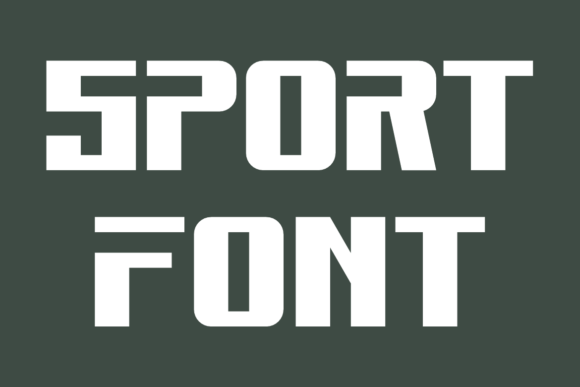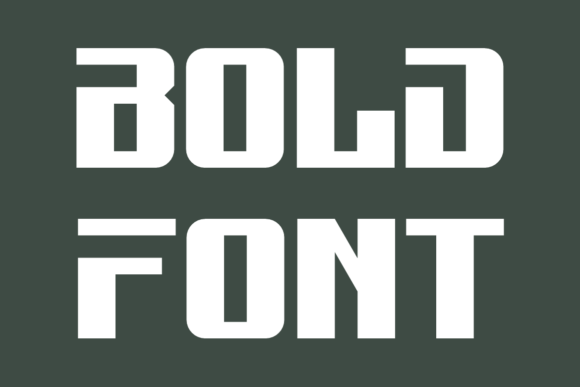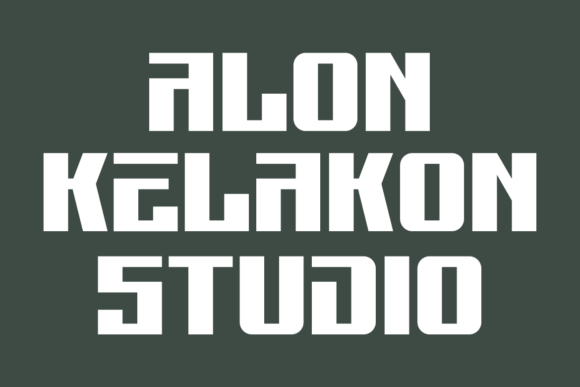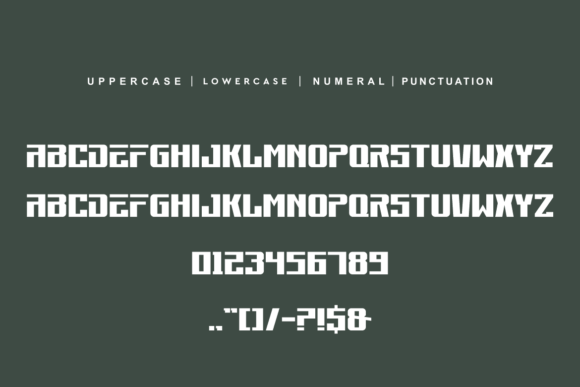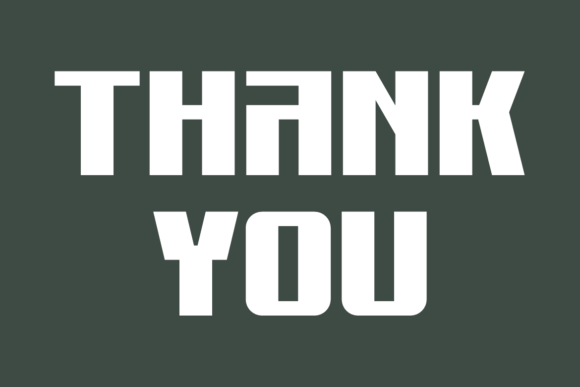
Introducing Bold Gobinek Font: The Ultimate Sans Serif for Creative Projects
In the world of typography, a bold and assertive font can make all the difference in grabbing attention and conveying confidence. This is where Bold Gobinek Font comes in – a stunning sans serif font designed to elevate your creative projects to the next level. Whether you’re a designer, crafter, or simply someone who loves to experiment with typography, Bold Gobinek is an excellent addition to your font library.
What is Bold Gobinek Font?
Bold Gobinek Font is a modern sans serif font that exudes boldness and assertiveness. Its clean lines, precise curves, and geometric shape make it perfect for a wide range of applications, from digital media to print materials. The font’s bold personality is sure to make a statement, whether you’re designing an invitation, social media post, poster, menu, or business card.
Key Features of Bold Gobinek Font
• Bold and Assertive: As its name suggests, Bold Gobinek Font is all about making a statement. Its bold weight ensures that your text stands out, even at small sizes.
• Sans Serif: The font’s sans serif design gives it a clean and modern look, making it perfect for contemporary designs.
• Versatile: Bold Gobinek Font is suitable for a wide range of applications, including invitations, social media posts, posters, menus, business cards, and more.
• Easy to Read: Despite its boldness, the font remains highly legible, even at small sizes.
Use Cases for Bold Gobinek Font
So, where can you use Bold Gobinek Font? The possibilities are endless! Here are some ideas to get you started:
• Invitations: Create eye-catching invitations for special occasions like weddings, birthdays, and graduations.
• Social Media: Use Bold Gobinek Font to create engaging social media posts that grab attention.
• Posters: Design bold and striking posters for events, promotions, or awareness campaigns.
• Menus: Add a touch of personality to your restaurant or cafe menu with Bold Gobinek Font.
• Business Cards: Create memorable business cards that showcase your brand’s personality.
Tips for Using Bold Gobinek Font
To get the most out of Bold Gobinek Font, here are some tips to keep in mind:
• Pair with a Serif Font: Combine Bold Gobinek Font with a serif font to create a striking contrast.
• Experiment with Colors: Try out different colors to see what works best with Bold Gobinek Font.
• Use it Sparingly: While Bold Gobinek Font is bold and assertive, it’s best to use it sparingly to avoid overwhelming the reader.
In conclusion, Bold Gobinek Font is a powerful and versatile sans serif font that’s perfect for creative projects. Its bold and assertive personality makes it suitable for a wide range of applications, from invitations and social media posts to posters and business cards. With its clean design, precise curves, and geometric shape, Bold Gobinek Font is sure to elevate your designs to the next level. So why wait? Add Bold Gobinek Font to your font library today and start creating stunning designs that grab attention!